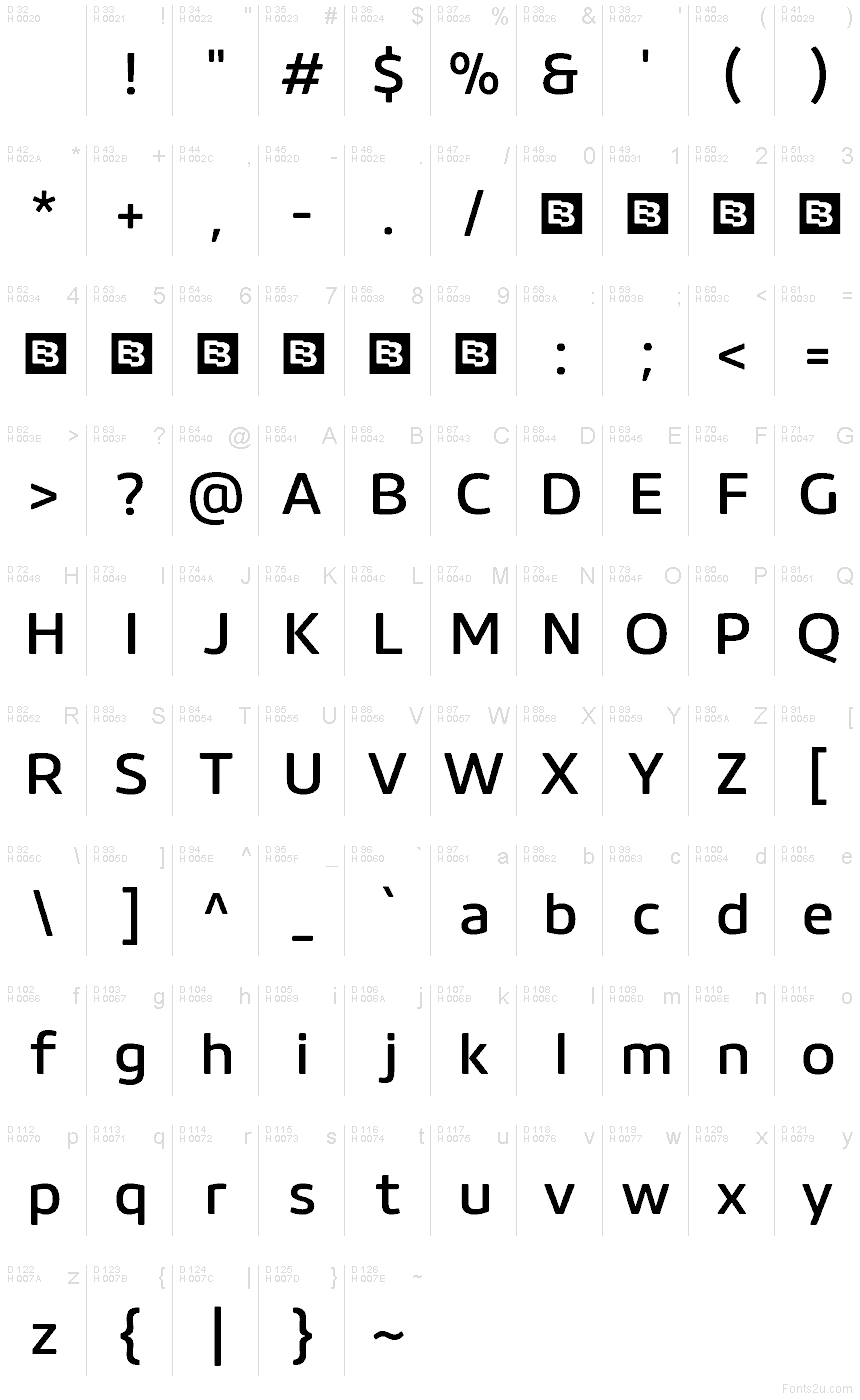
Digiva Trial Medium
Digiva Medium font by Eko Bimantara is a versatile sans-serif featuring a classic, modern style. This clean typeface has approachable lettering that makes it professional yet friendly and legible. The free font can communicate your message as intended whether you use it in headlines, subheadings, or body text.
Give this typeface a try in web design projects like UI/UX interfaces, apps, or websites. It will further serve you well in print project designs such as magazines and newspapers. Finally use Digiva Medium to assemble posters, brochures, PowerPoint presentations, social media covers on Instagram and Facebook.